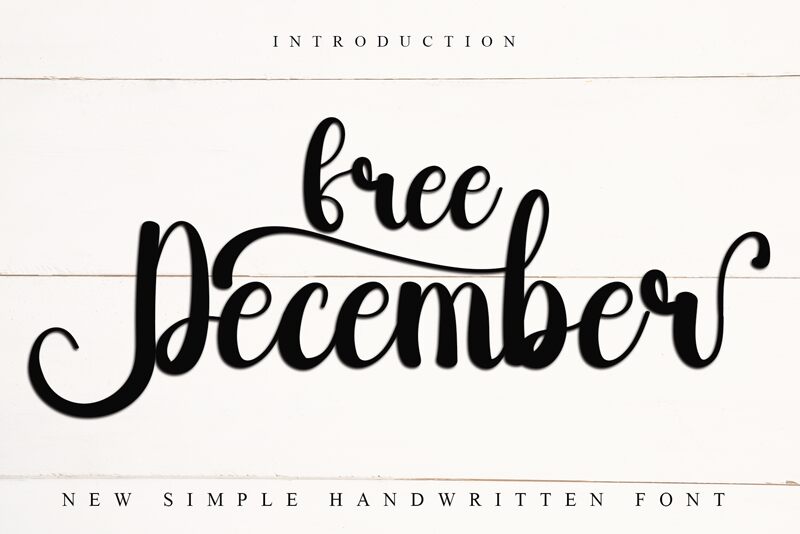
Free December font by creatype designer is a free-for-personal-use font that has similar vibes to those of script fonts. No one embodies and exemplifies the magic of Christmas Eve quite like December, with plenty of holiday lights and fantastically wrapped gifts for a wonderful holiday.
Now your projects, although they do not provide cookies, can offer just as much joviality with this resource. Make every moment count and show that every second matters with eye-catching displays and covers for albums that celebrate finally finding your significant other or party invitations that loudly proclaim that all are invited.
This font retains a classy calligraphic influence while feeling contemporary and fresh. Its versatility makes it suitable for a wide range of creative projects, from letterheads and titles to stationery.